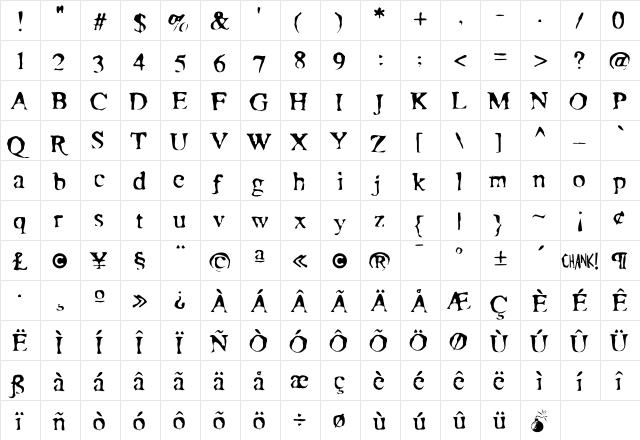
Moonshine Regular
Design Context for Moonshine Typeface
Moonshine is a composed and adaptable typeface that performs quietly and consistently across a wide range of design contexts.